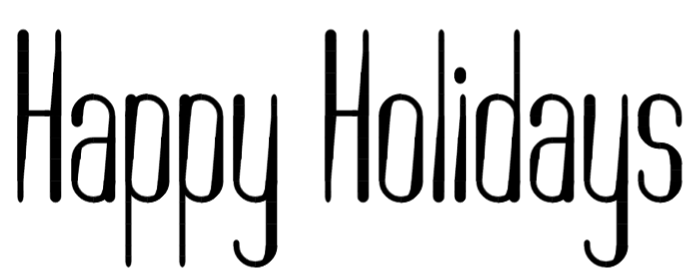
A Xmas gift, I supose! This is the font of those long and round numbers that I liked so much! Thank you, Galo! Just a "but": the accents in the upper case should be a little further apart from the glyphs, as they are in the lower case. My 10 for you, anyway.